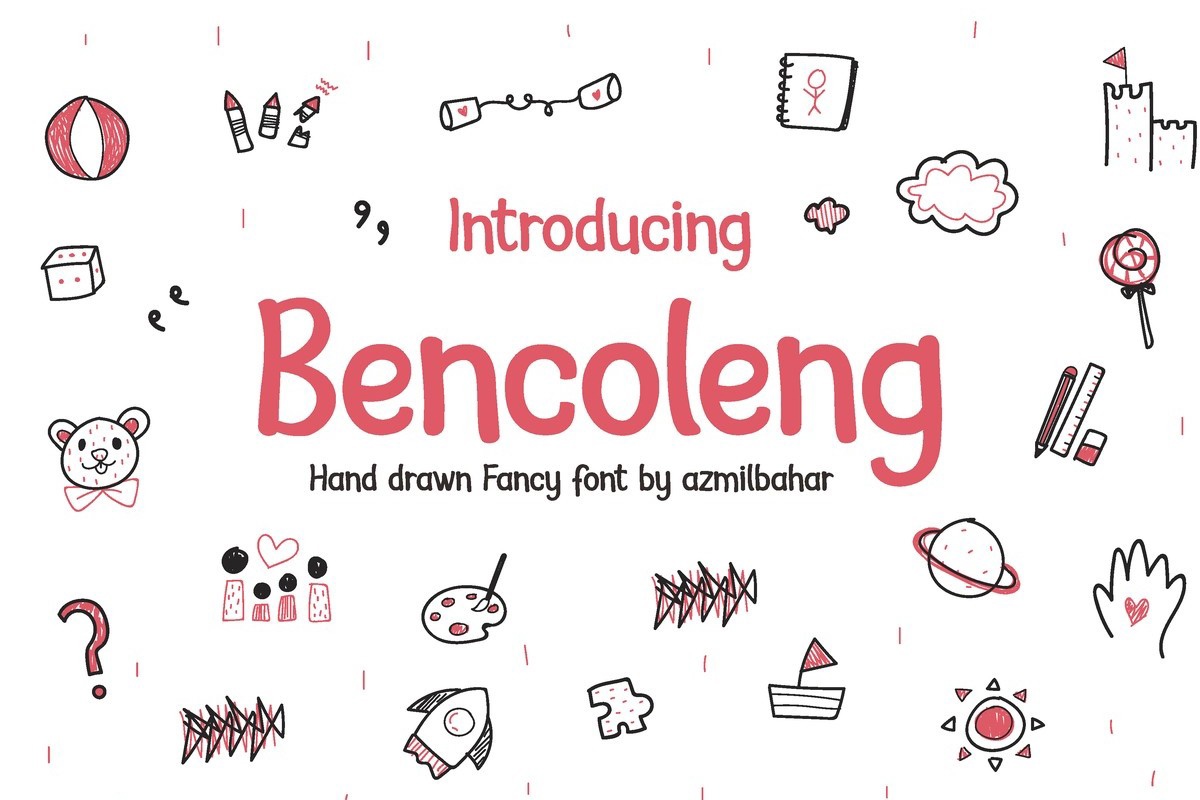
Bencoleng Font
The Bencoleng Font is a dynamic, modern, and versatile sans-serif typeface that stands out with its uniquely handwritten and fluid letterforms. Its clean lines and subtle bends give it a sense of movement and energy, making it an excellent choice for a wide variety of design projects. This font is perfect for modern branding, creative posters, tech company websites, and social media graphics that need a fresh and contemporary feel. The Bencoleng Font's unique character makes it a favorite among designers who want to create a bold, memorable statement that is both unique and modern.
What makes the Bencoleng Font so exciting is its raw, uncompromising energy. The intentional curves in each character give it a genuine, human touch that sets it apart from more traditional, geometric fonts. This isn't just a font; it's a piece of art that tells a story, making your designs feel rich with character and meaning. Its powerful presence ensures that your message is not just seen, but felt, making it an invaluable tool for designers who want to create bold and memorable visual experiences.
The Bencoleng font family is designed for maximum impact, providing a complete set of uppercase and lowercase letters, numbers, and punctuation. While it's primarily designed as a display font, its clean lines and clear structure maintain a surprising level of readability, even in complex layouts. This full-featured family gives you all the tools you need to create a cohesive and powerful design.